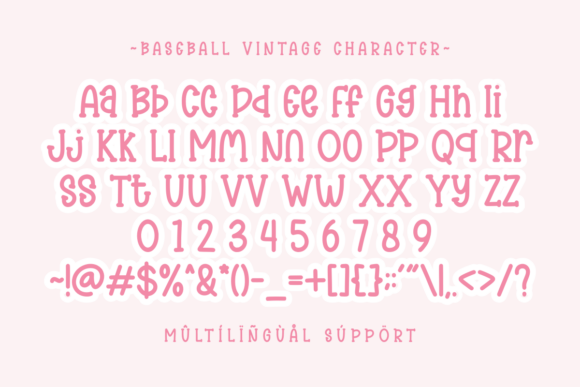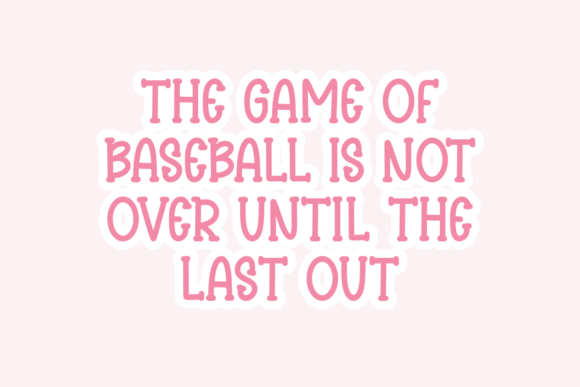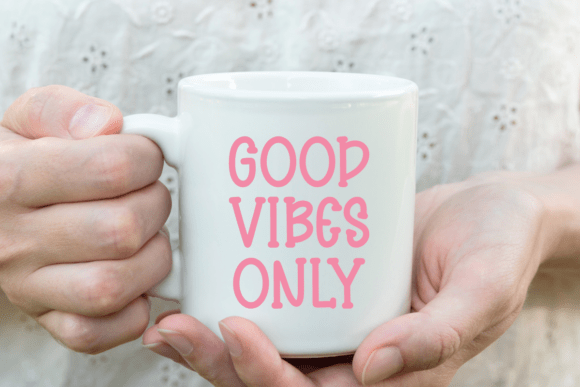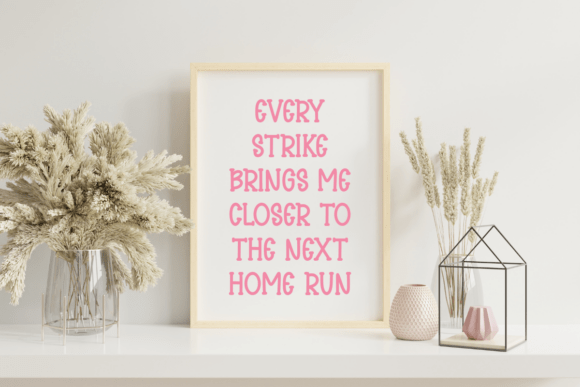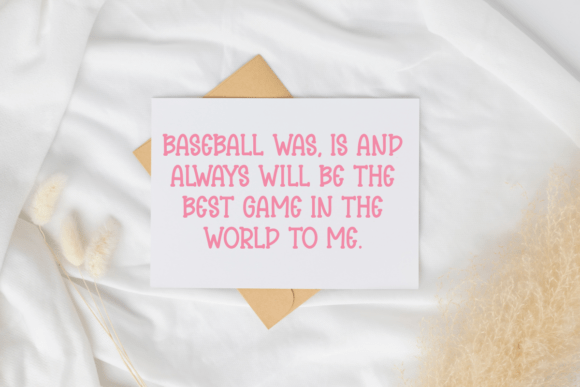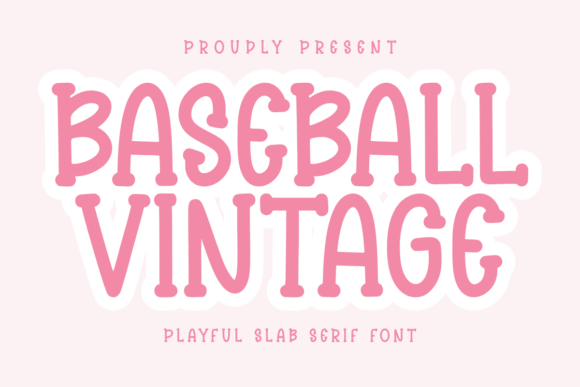
Discover the Charm of Baseball Vintage Font: Elevate Your Designs with a Classic Touch
Are you a designer or crafter looking for a font that can add a touch of nostalgia and charm to your creations? Look no further than the Baseball Vintage font. This adorable and minimalist slab serif font is perfect for a wide range of design projects, from greeting cards and wedding invitations to gift labels, mugs, t-shirts, and more.
The Characteristics of Baseball Vintage Font
Baseball Vintage Font is a slab serif font, characterized by its clean and simple lines, and small rounded serifs. The font’s minimalist design gives it a classic and timeless feel, making it perfect for designers and crafters who want to create designs that are both elegant and eye-catching.
One of the standout features of Baseball Vintage Font is its versatility. The font is highly legible, making it suitable for use in a variety of contexts, from large headlines to small body text. Additionally, the font’s neutral design ensures that it can be paired with a wide range of other fonts and design elements, giving you endless possibilities for creative expression.
Uses for Baseball Vintage Font
So, what can you create with Baseball Vintage Font? The possibilities are endless! Here are a few ideas to get you started:
- Greeting Cards: Add a personal touch to your greeting cards with Baseball Vintage Font. Whether you’re creating birthday cards, thank you cards, or holiday cards, this font is sure to make your designs stand out.
- Wedding Invitations: Make your wedding invitations truly special with Baseball Vintage Font. The font’s classic design and romantic feel make it perfect for wedding stationery.
- Gift Labels: Add a touch of elegance to your gifts with Baseball Vintage Font. Use the font to create beautiful labels for gifts, parties, and special occasions.
- Mugs and T-Shirts: Create eye-catching designs for mugs and t-shirts with Baseball Vintage Font. The font’s bold and playful design makes it perfect for creating fun and quirky designs.
- Quotes and Labels: Use Baseball Vintage Font to create inspiring quotes and labels. The font’s clean design and simple lines make it perfect for creating designs that are both beautiful and easy to read.
Why Choose Baseball Vintage Font?
So, why should you choose Baseball Vintage Font for your design projects? Here are just a few reasons:
- Unique and Eye-Catching: Baseball Vintage Font is a unique and eye-catching font that is sure to make your designs stand out.
- Versatile: The font’s neutral design and high legibility make it suitable for use in a wide range of contexts.
- Elegant and Timeless: Baseball Vintage Font has a classic and timeless feel that will never go out of style.
Tips for Using Baseball Vintage Font
Here are a few tips for using Baseball Vintage Font in your design projects:
- Pair with Other Fonts: Experiment with pairing Baseball Vintage Font with other fonts to create unique and interesting designs.
- Use in Combination with Images: Use Baseball Vintage Font in combination with images to create visually appealing designs.
In conclusion, Baseball Vintage Font is a charming and versatile font that is perfect for designers and crafters who want to add a touch of nostalgia and elegance to their creations. With its clean design, simple lines, and classic feel, this font is sure to become a staple in your design toolkit. So why wait? Download Baseball Vintage Font today and start creating spectacular and interesting designs!